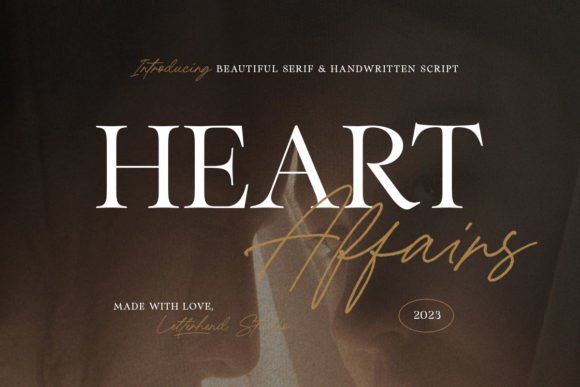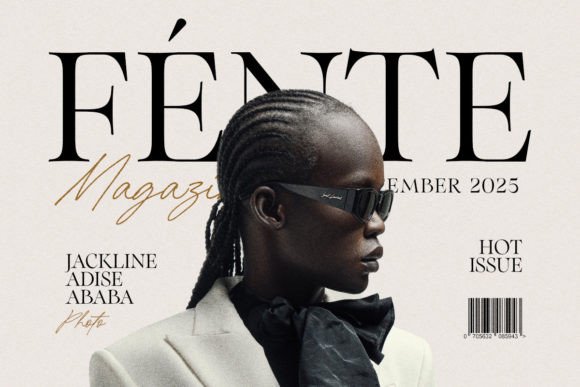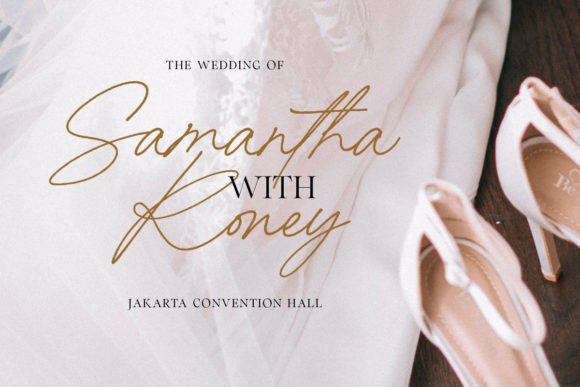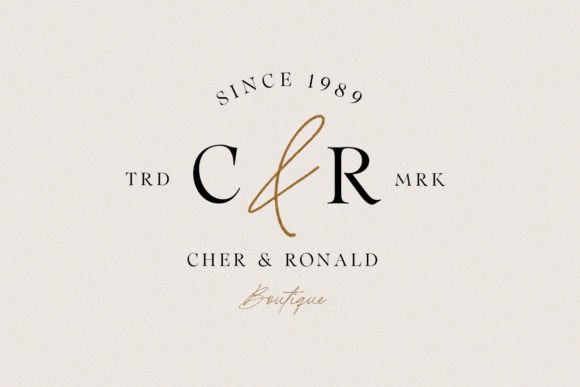
Heart Affairs  Font
About the Heart Affairs  Font
Let us introduce you to Heart Affairs  Font, where timeless design meets modern craftsmanship. Ladies and gentlemen, please welcome our new font duo – Heart Affairs, where the elegance of a serif font intertwines flawlessly with the beauty of a handwritten script. This font duo is carefully crafted to bring together the classic charm of serifs with the contemporary edge of modern scripts. Whether you’re designing wedding invitations, branding materials, or editorial layouts, Heart Affairs effortlessly elevates your projects with its timeless appeal and stylish versatility.
Heart Affairs excels in applications requiring a touch of refined elegance, such as wedding stationery, logos for luxury brands, or short-form editorial pieces. Its serif component works beautifully for headlines and short blocks of text, while the script is ideal for adding a personalized touch to names, quotes, or short phrases. Avoid using the script for large amounts of body text; its intricacy can hinder readability.
The font’s overall personality is sophisticated and romantic, yet approachable. It projects a sense of timeless charm without being overly formal.
For optimal pairings, consider pairing the serif with a clean sans-serif like Lato or Montserrat for a modern contrast. Alternatively, a classic serif like Garamond or a geometric sans-serif like Futura can create a more traditional yet balanced aesthetic. Using a simple, neutral sans-serif for body text ensures readability while maintaining the elegant feel established by Heart Affairs.
Heart Affairs  Font Usage Examples
Heart Affairs  Font Example